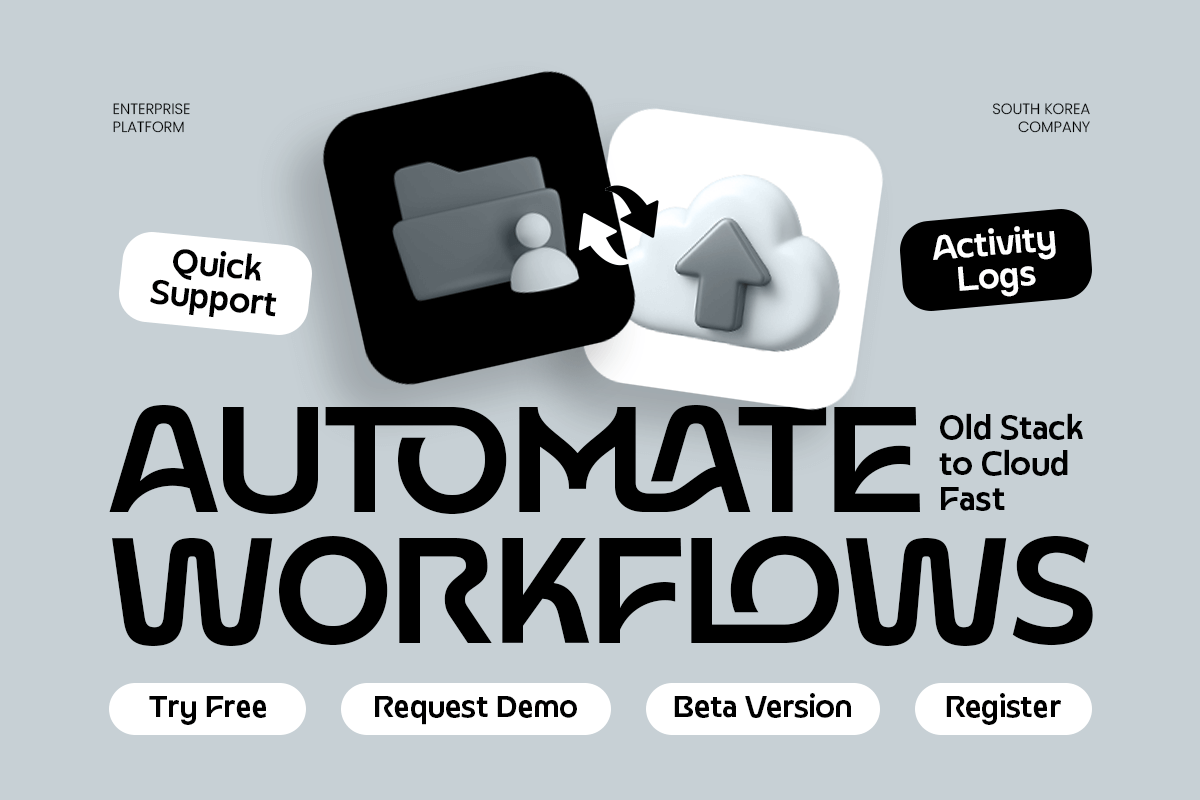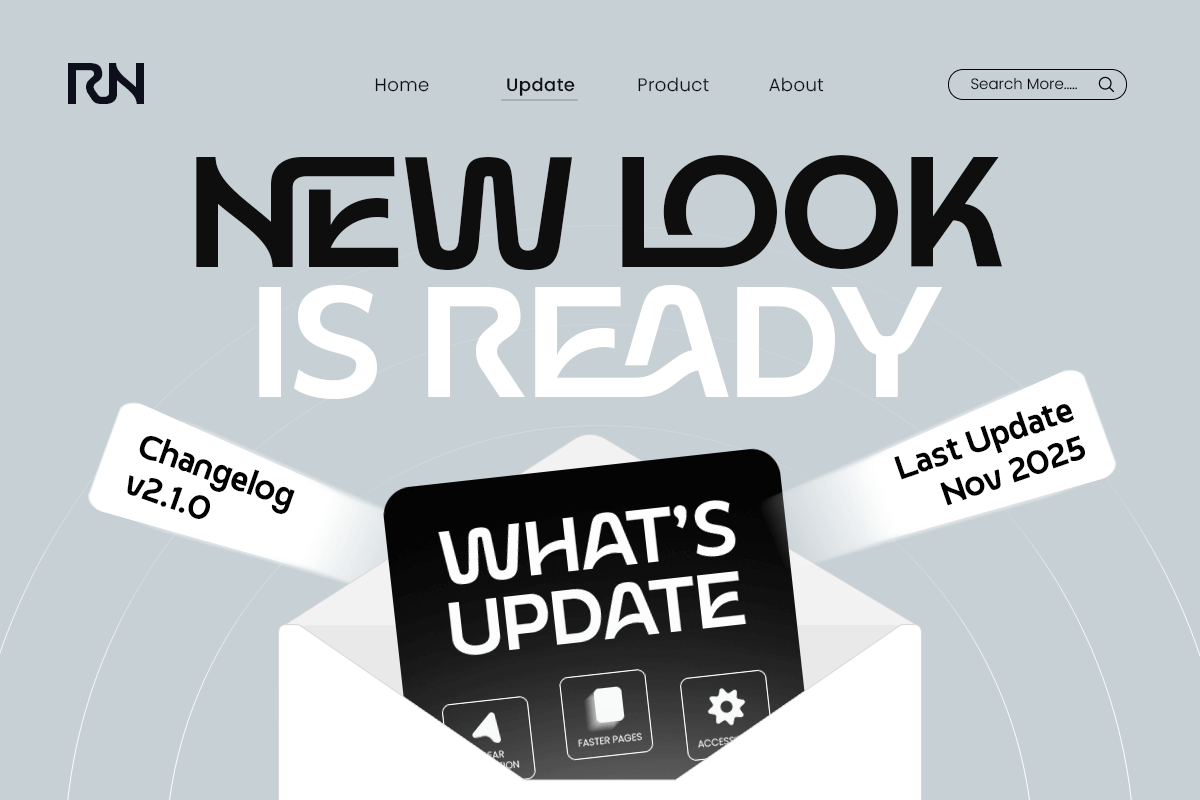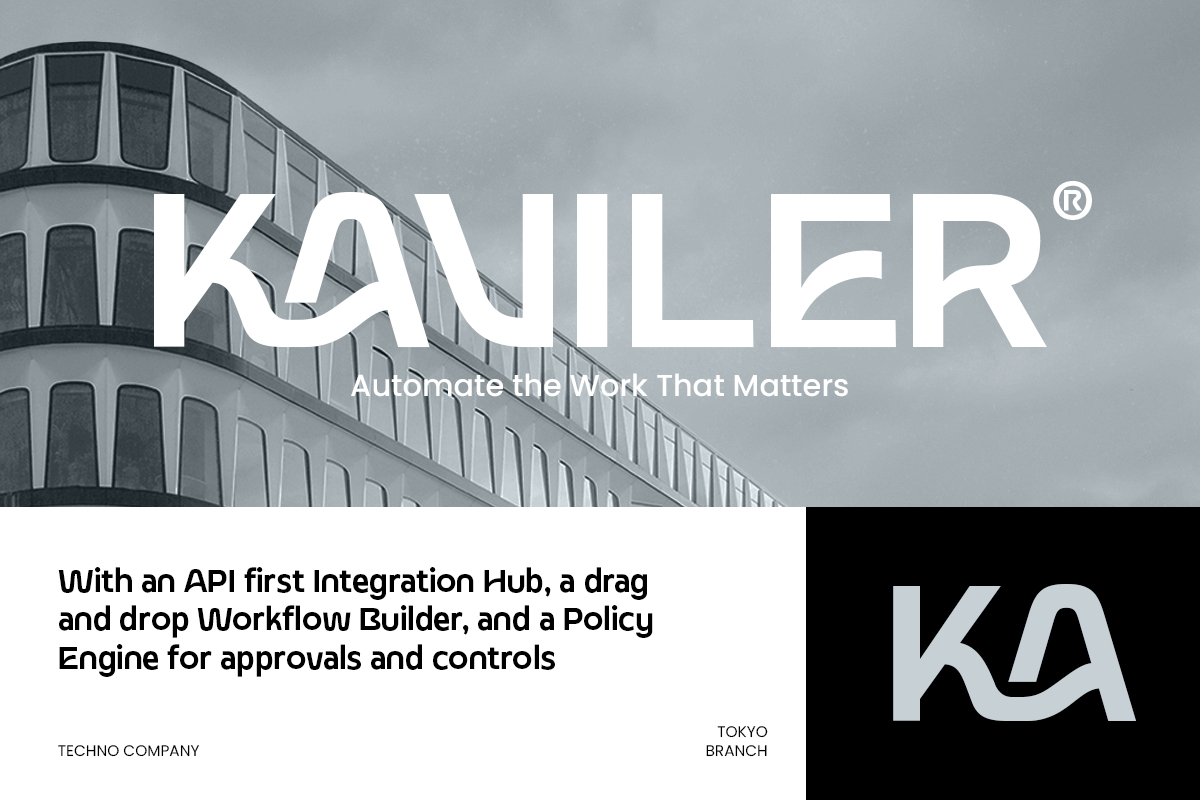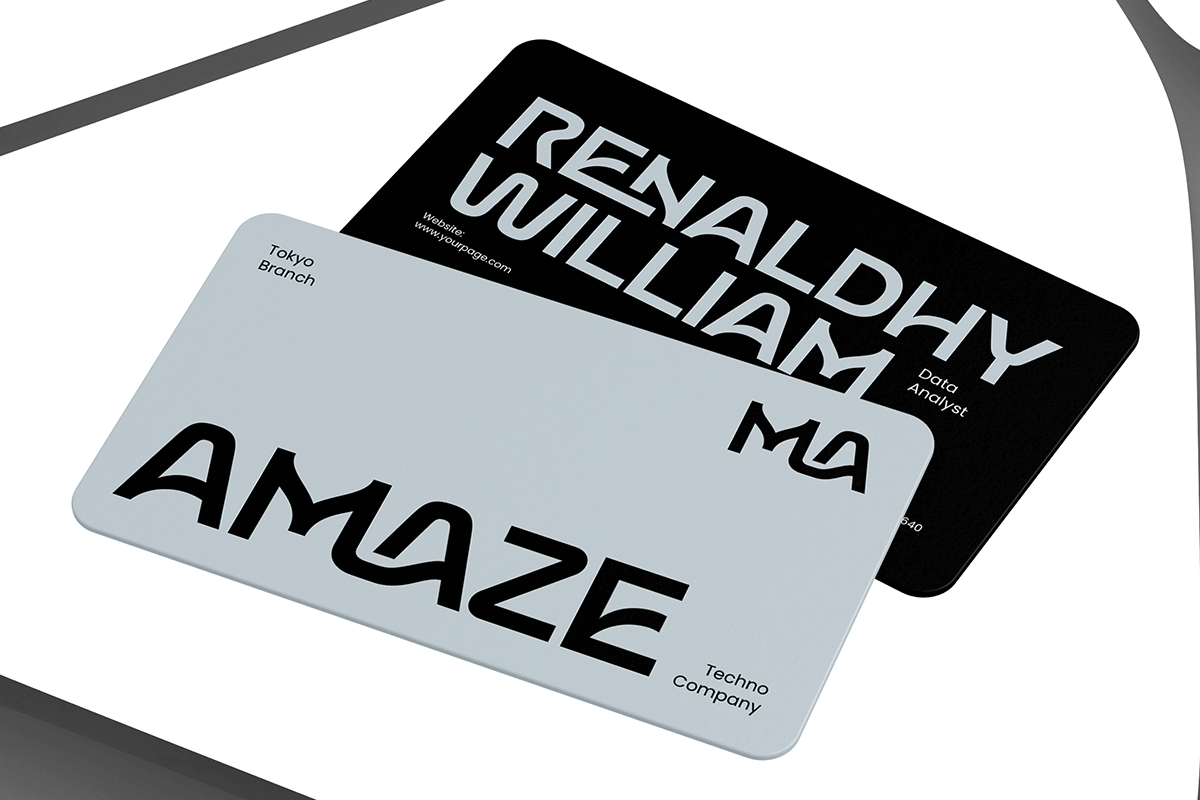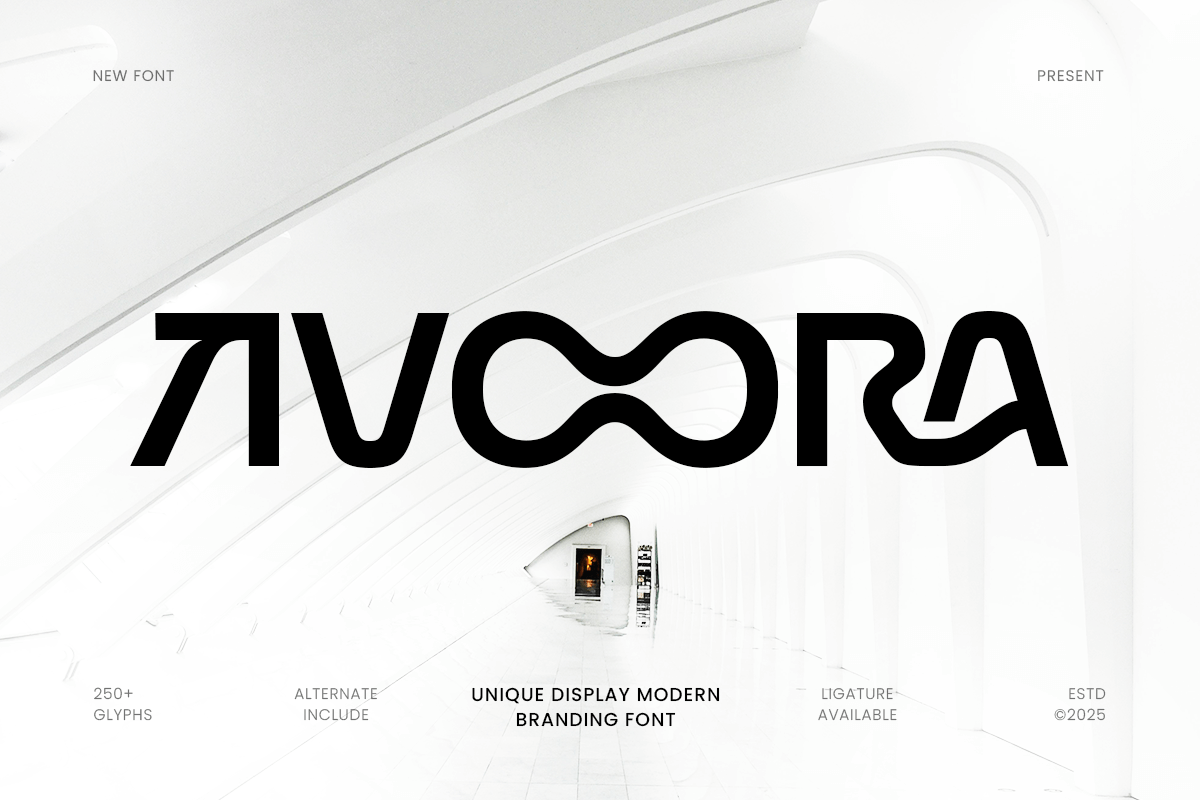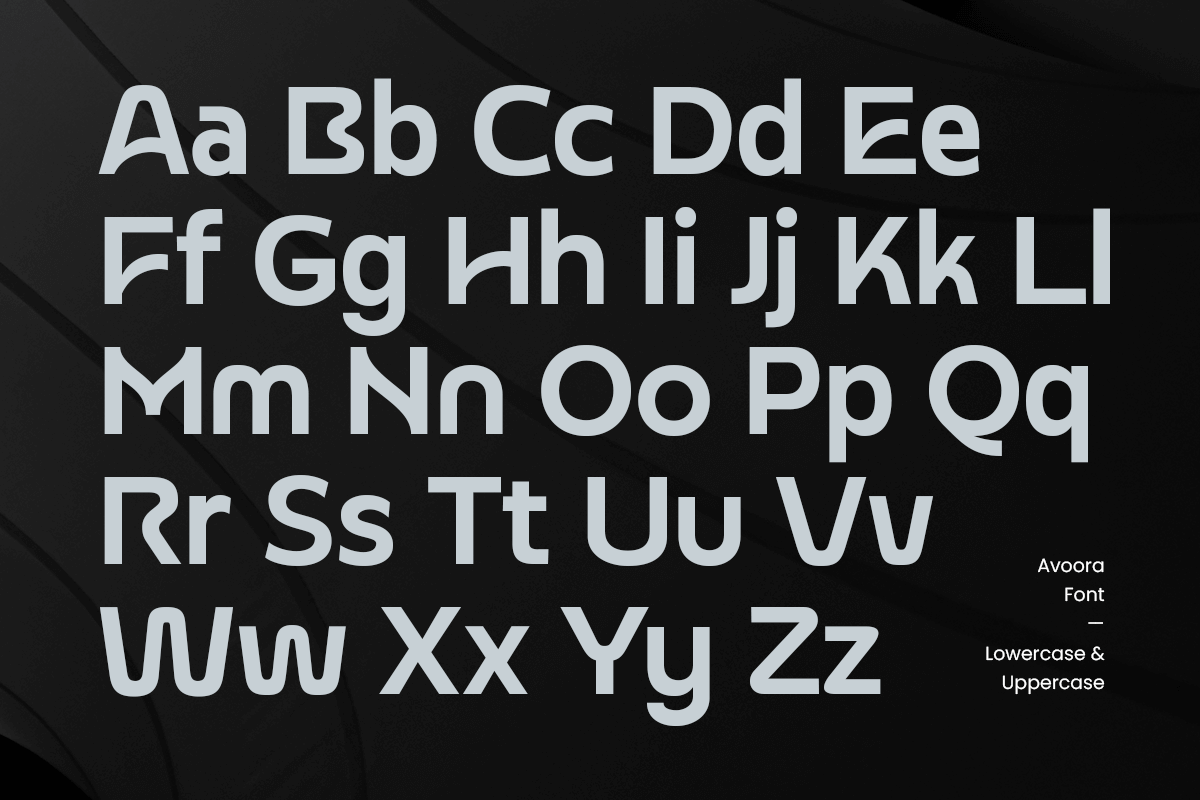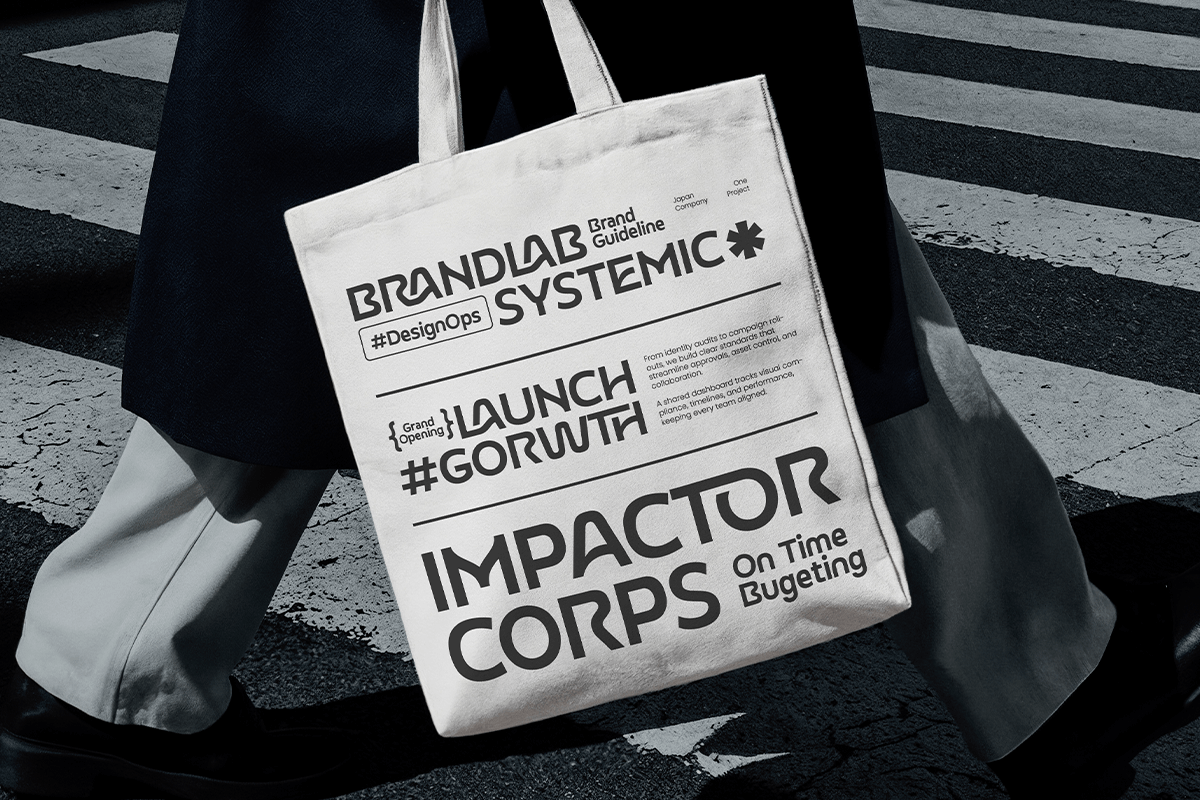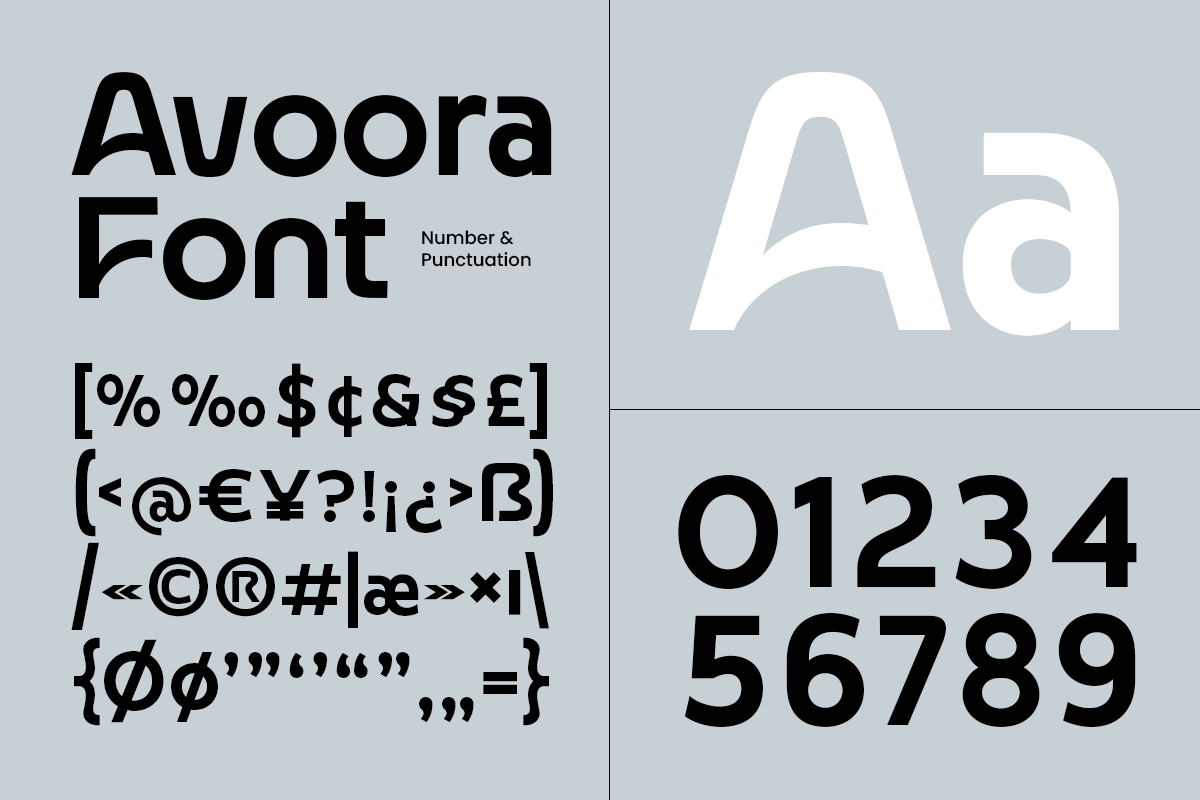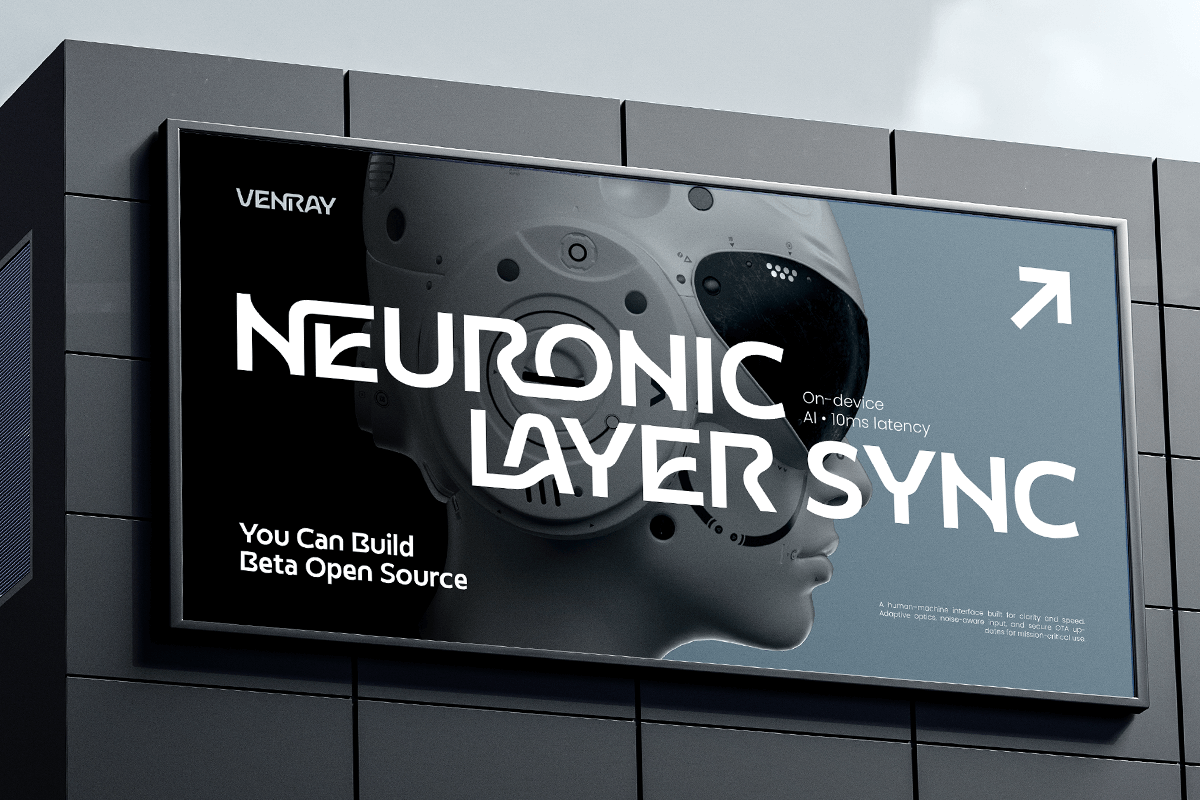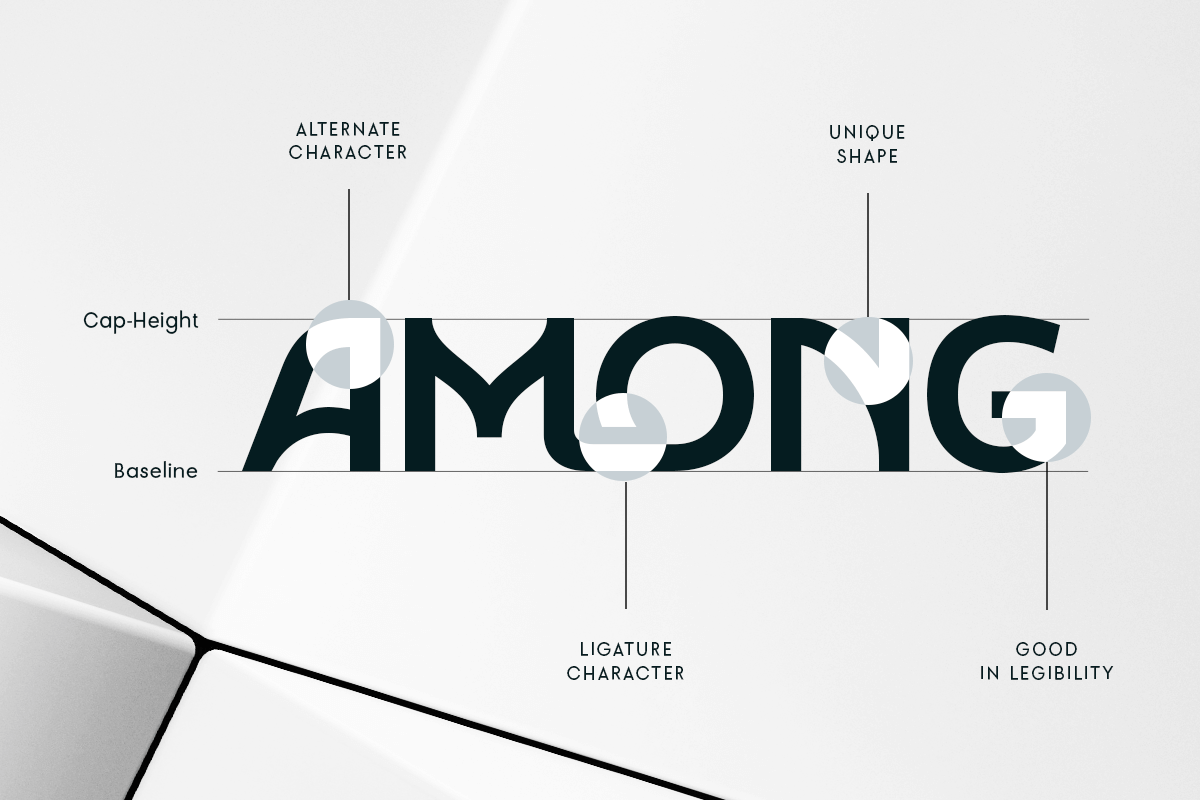
Avoora - Unique Modern Branding Font
Avoora – Unique Display Modern Branding Font
Avoora is a unique modern display font designed to elevate branding with a bold, creative, and contemporary style. Featuring distinctive letterforms and clean visual rhythm, Avoora is perfect for logos, brand identities, headlines, packaging, posters, and digital marketing visuals that demand attention.
Crafted for designers who want originality and impact, Avoora blends modern aesthetics with expressive character shapes, creating a memorable typographic presence. Its versatile display style works beautifully across both print and digital media, making it an excellent choice for creative brands, startups, fashion projects, and modern businesses.
Avoora – Unique Display Modern Branding Font Features:
* Unique modern display style with strong branding character
* Ideal for logos, headlines, packaging, and creative branding
* Uppercase, lowercase, numerals, and punctuation included
* Clean construction with balanced spacing
* Perfect for bold, creative, and contemporary design projects
Make your brand stand out with Avoora – a modern display font built for uniqueness and visual impact.